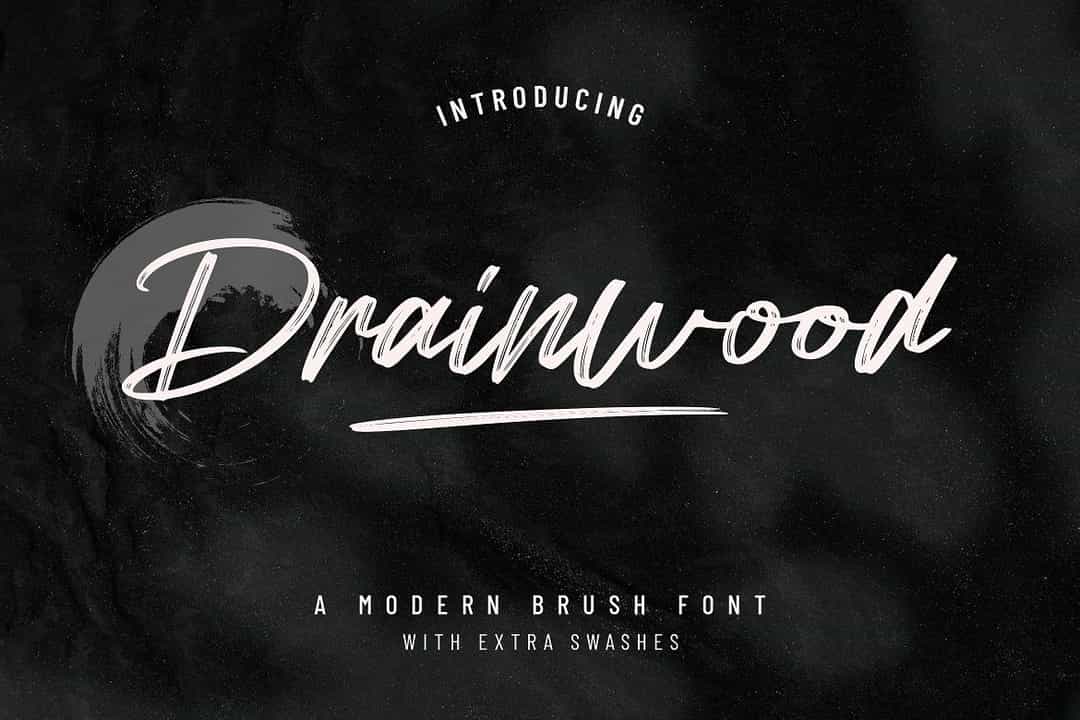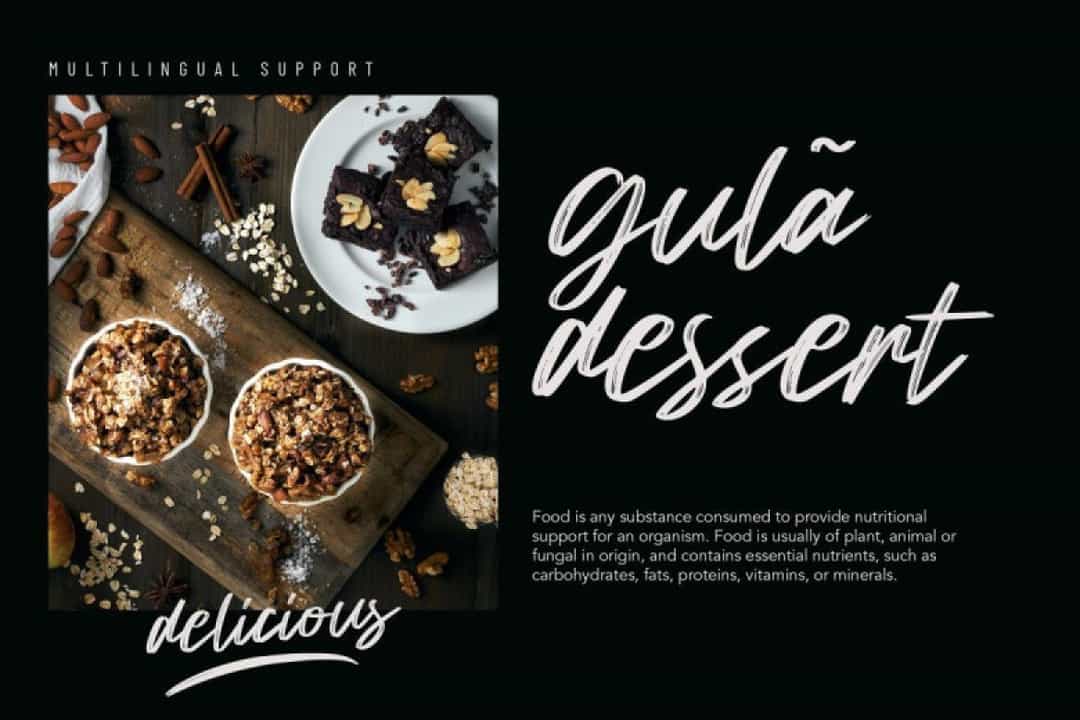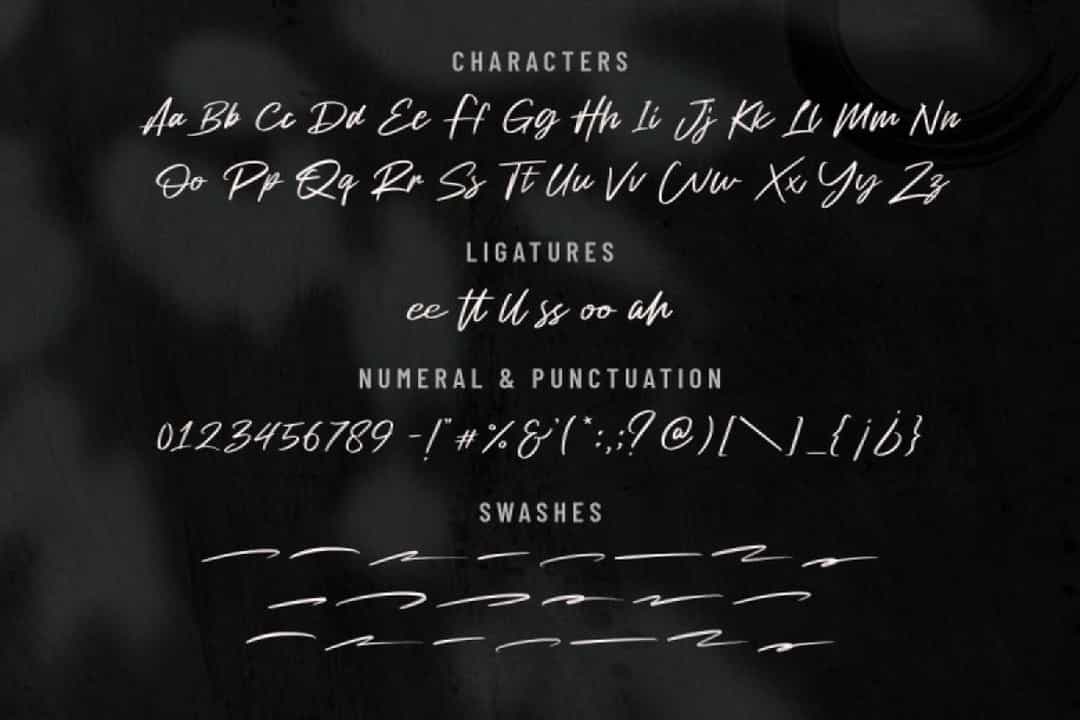
Drainwood is an elegant handwritten script font designed in contemporary style that is casual and robust elegant – suitable to meet a range of design requirements. Perfect for digital design work, crafting greeting cards or creating presentations – Drainwood makes an outstanding font option!